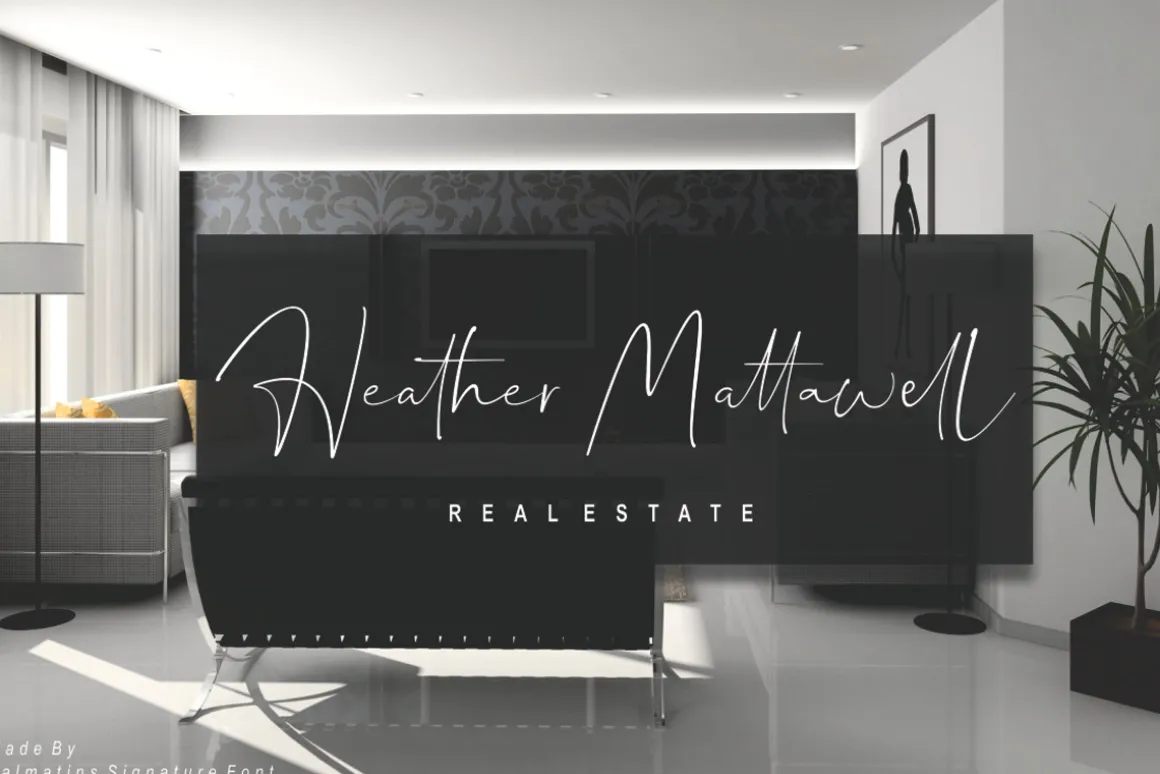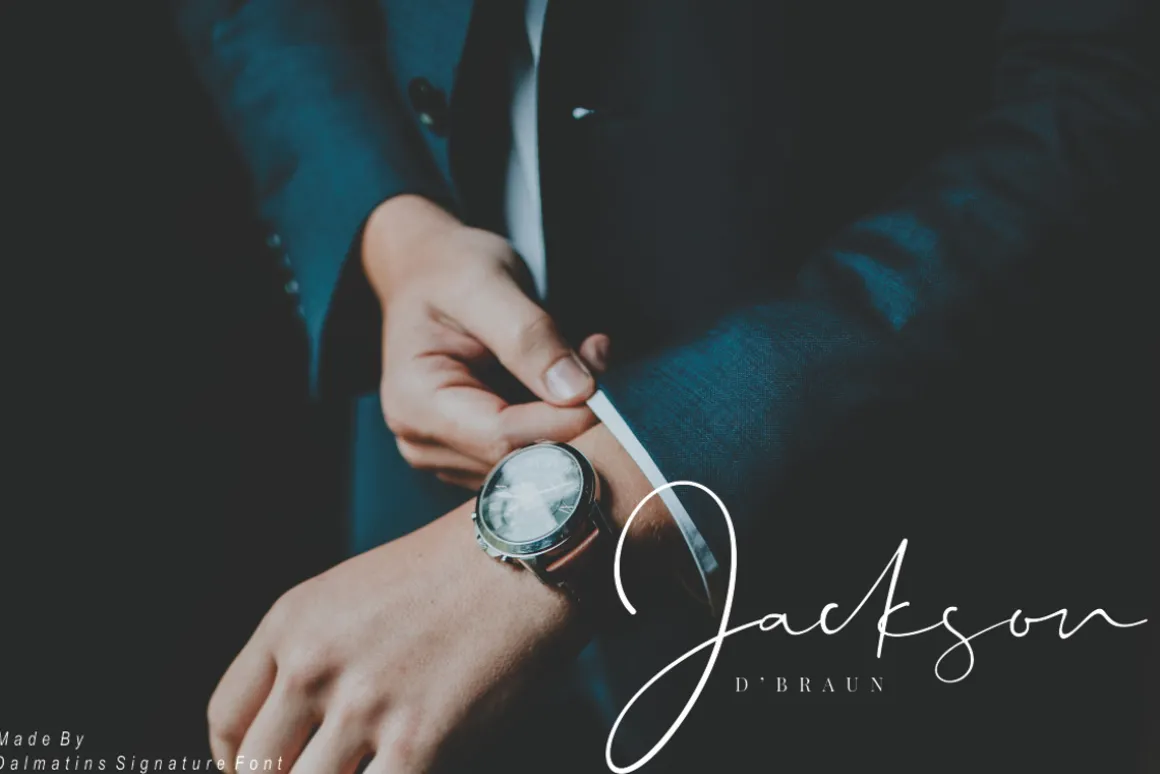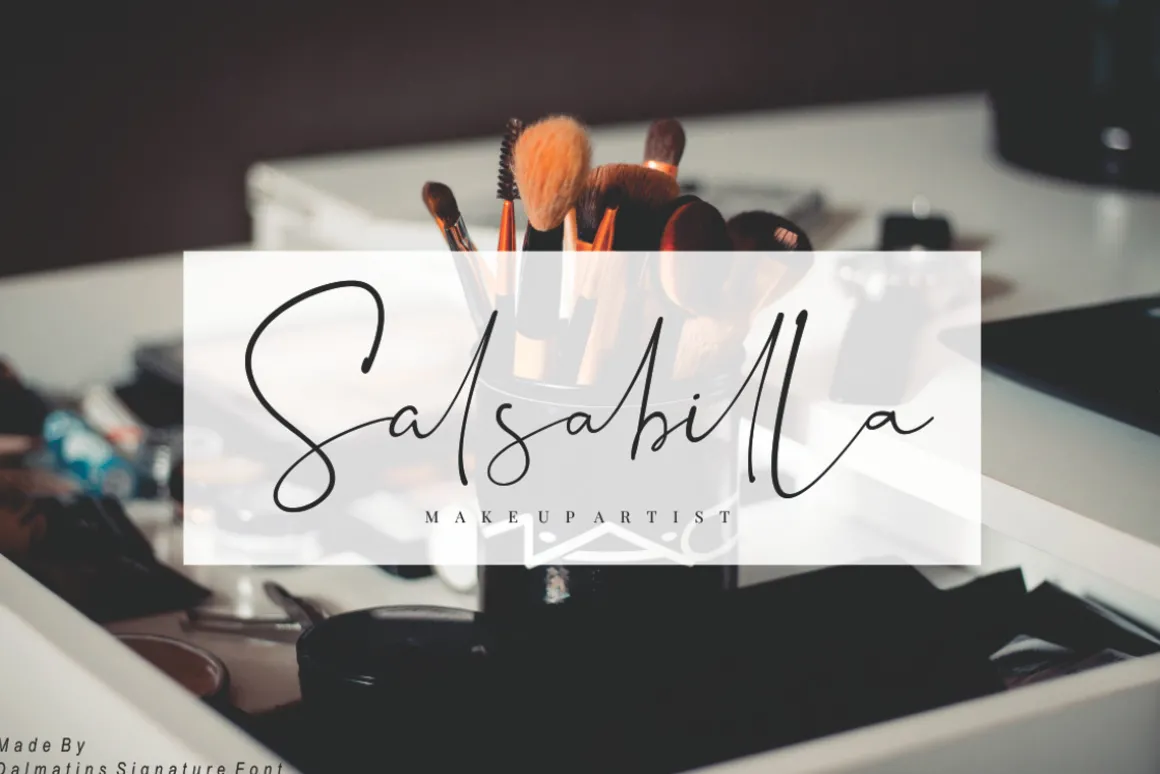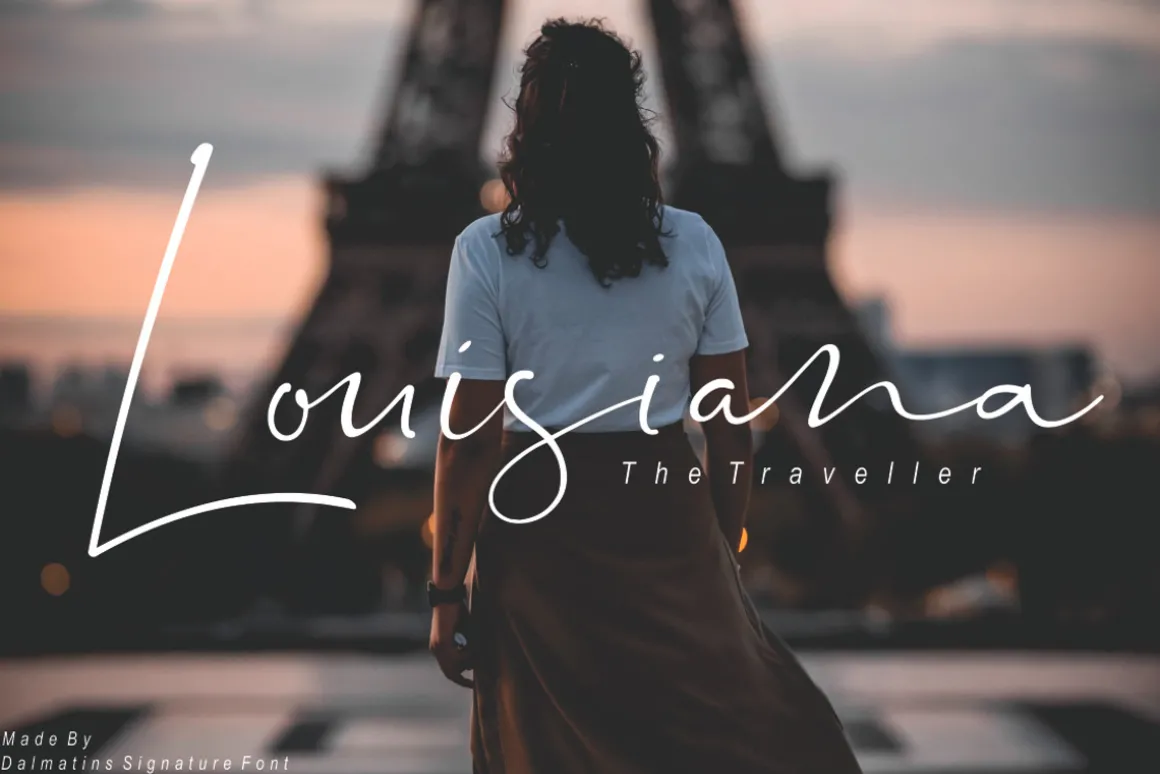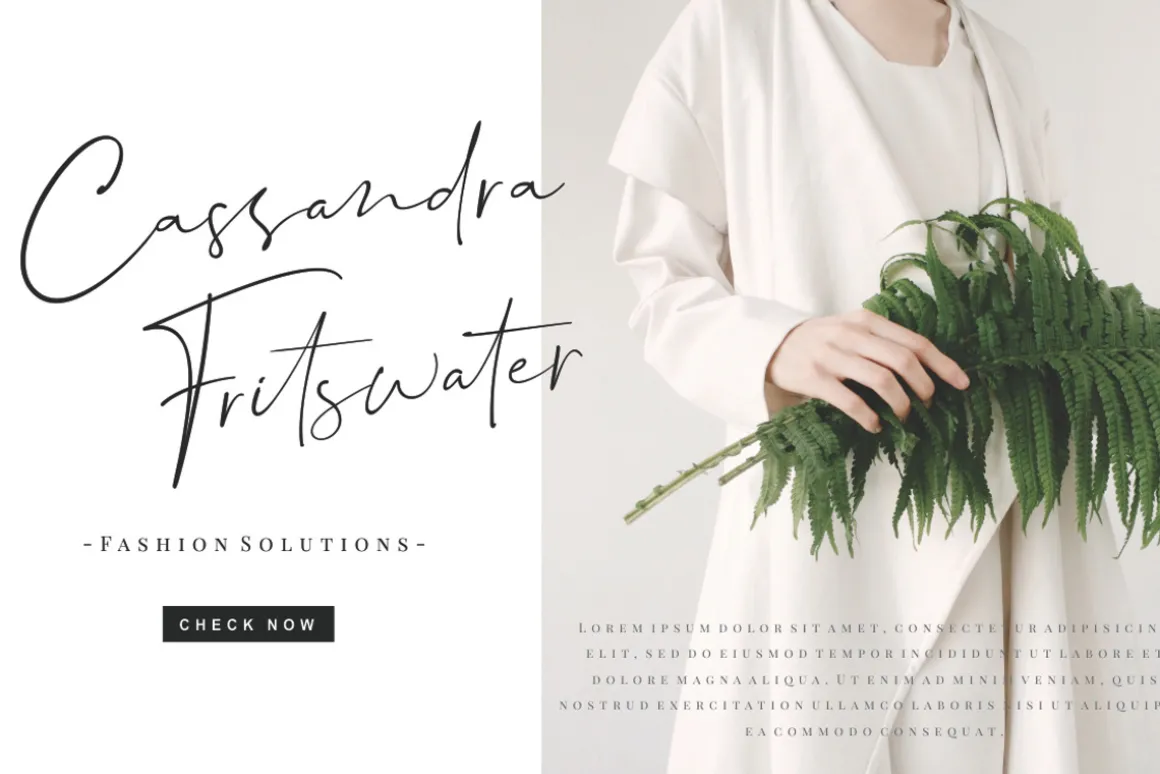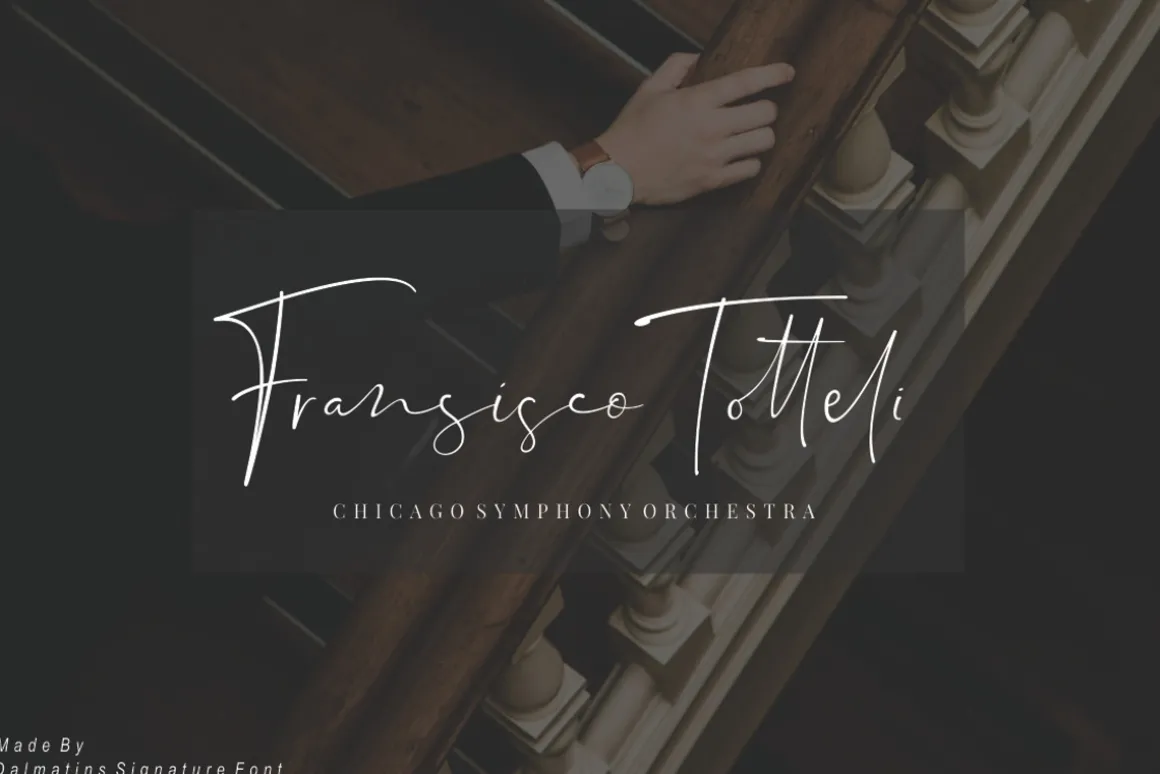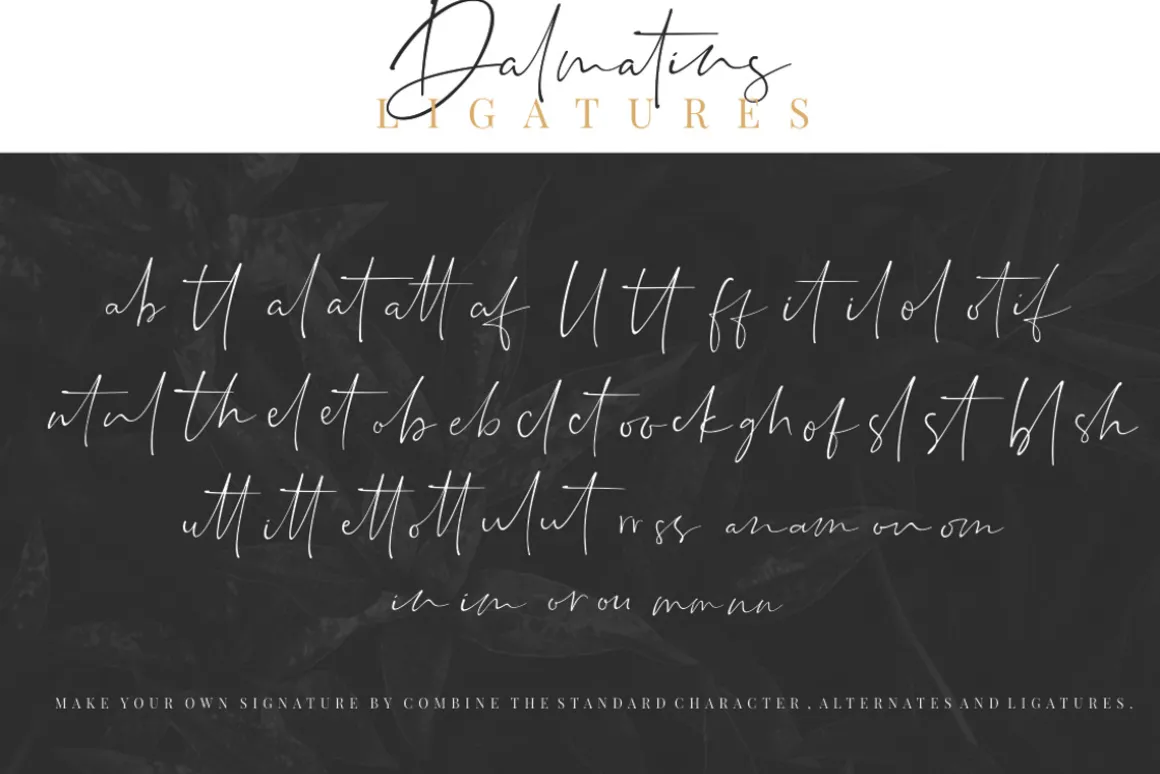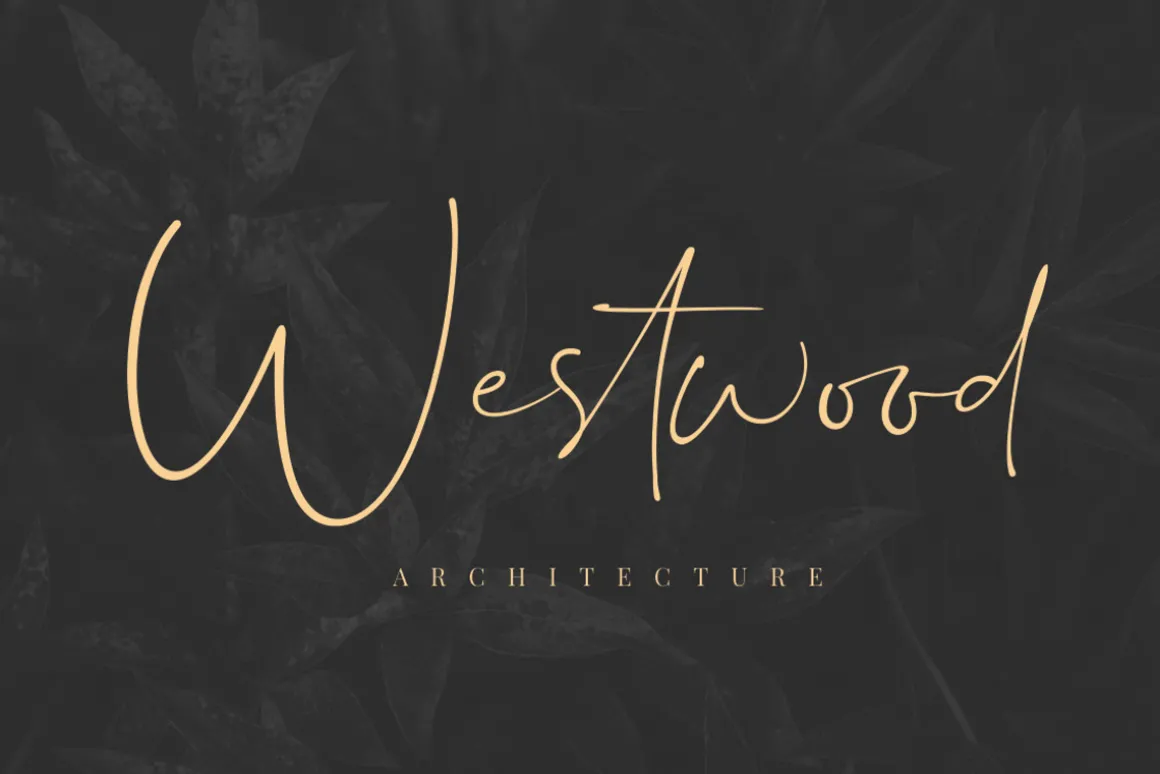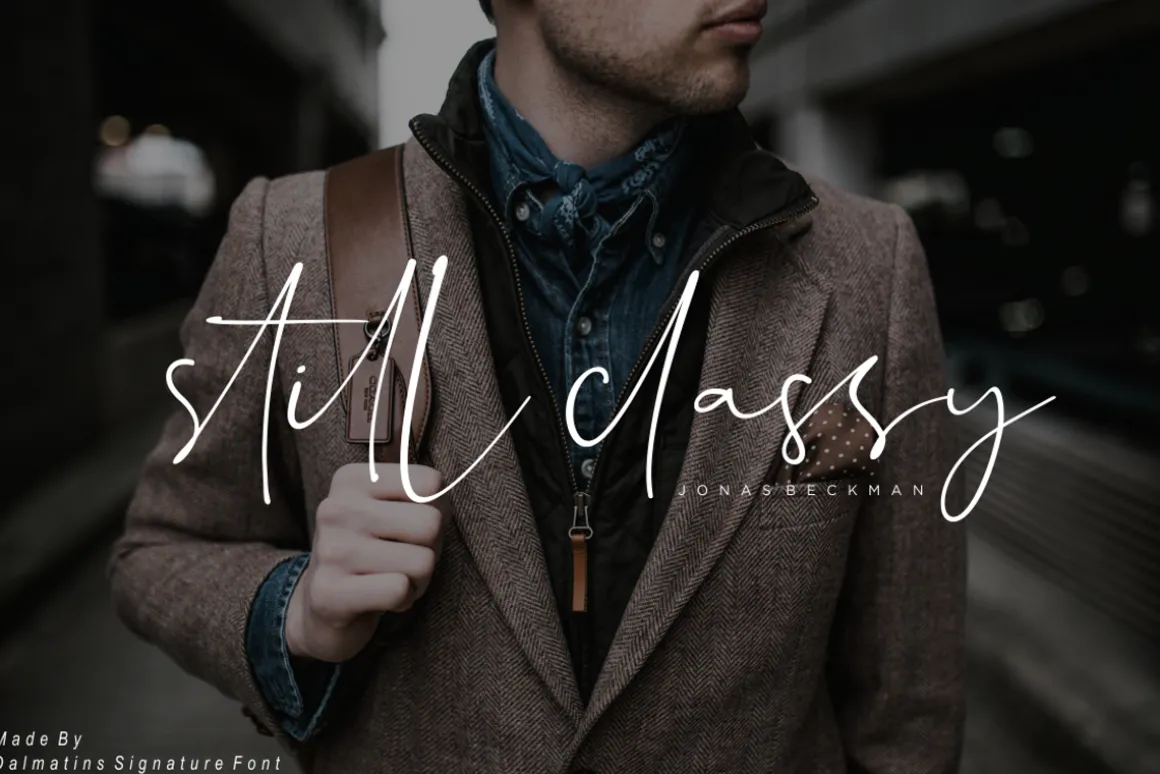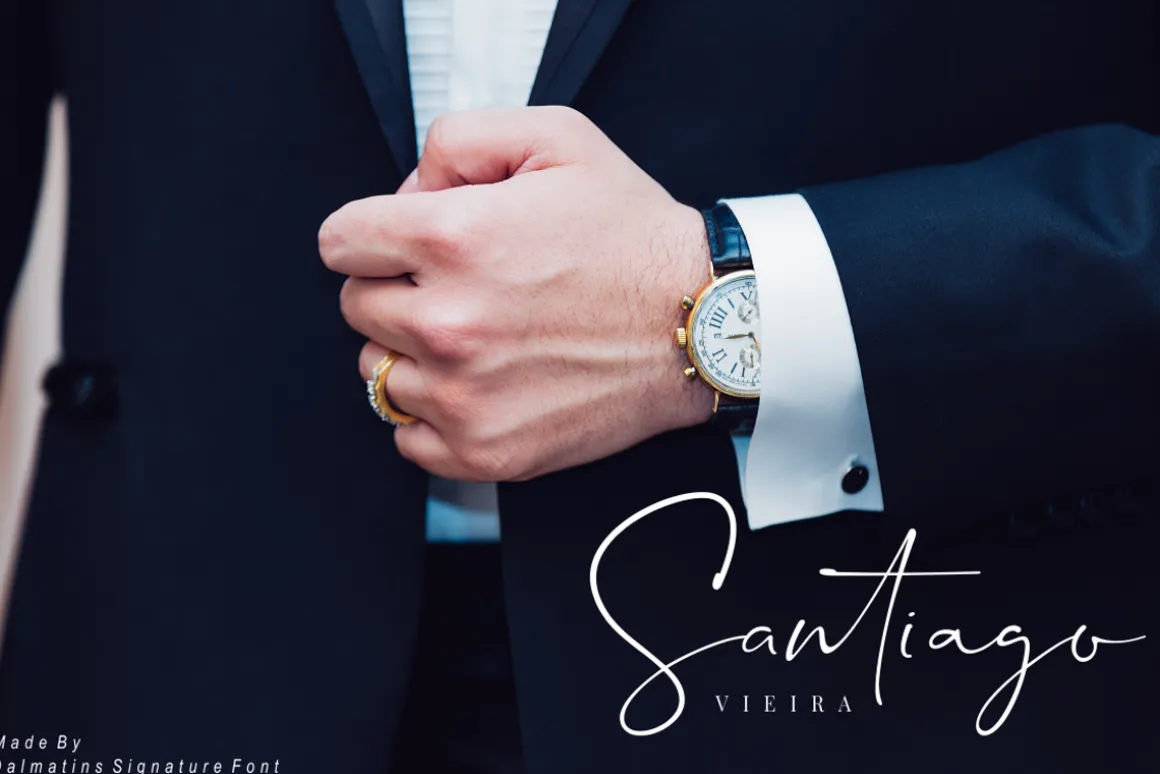
Introducing Dalmatins – a new modern signature with elegant lines make this font perfect for your personal branding and any awesome project, such as : logos, invitations, stationery, wedding designs, social media posts, advertisements, product packaging, product designs, labels, photography, watermarks, special events and much more !